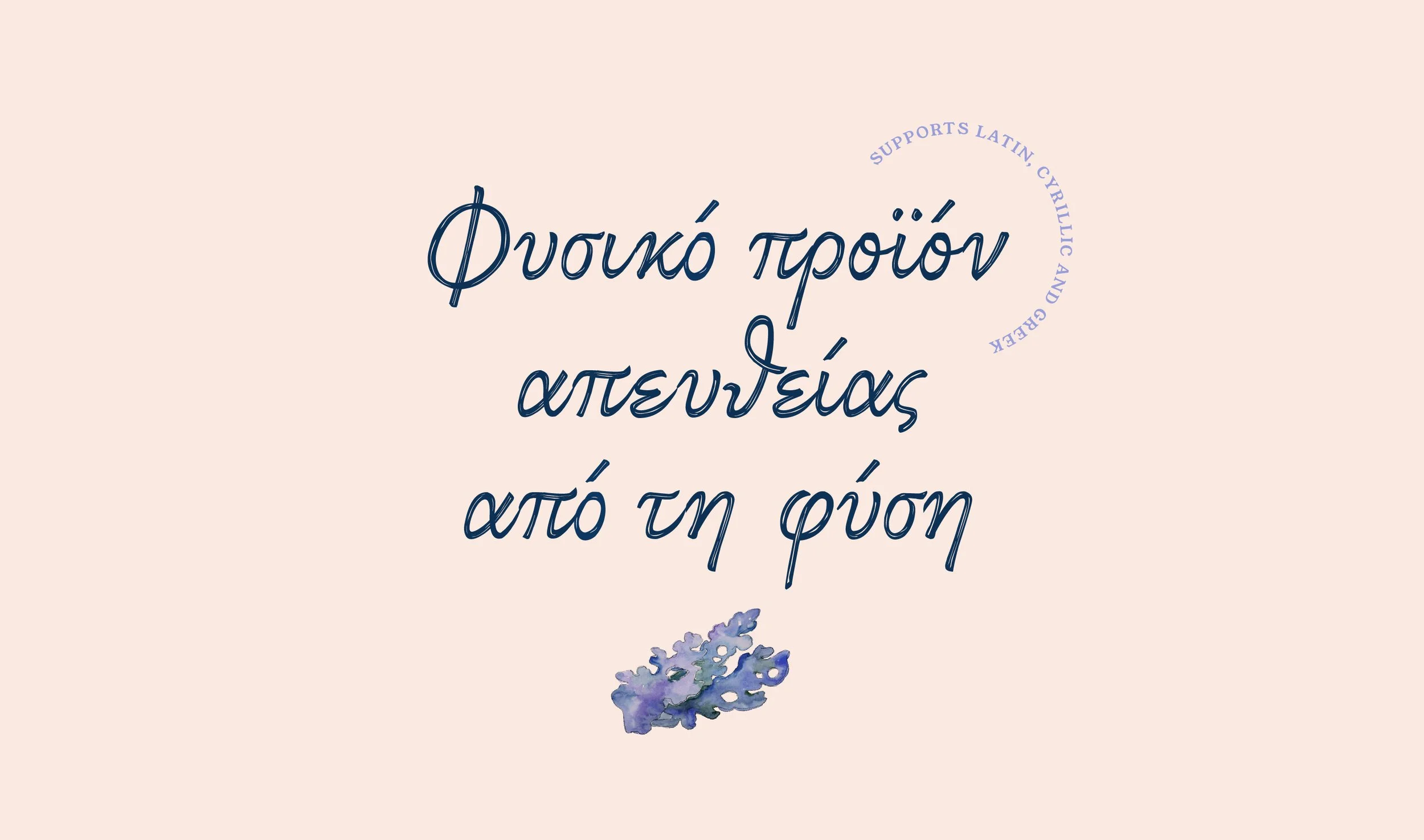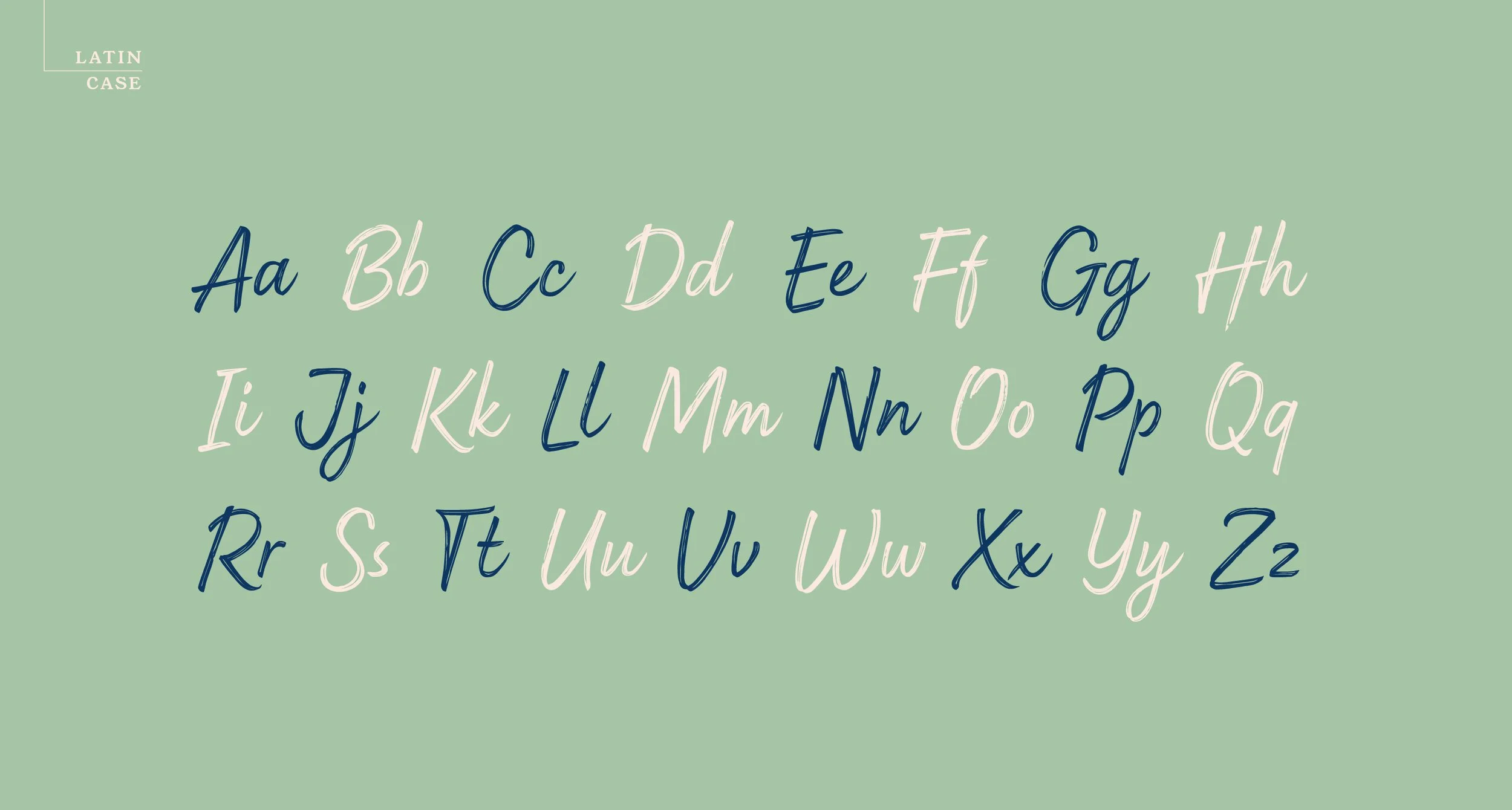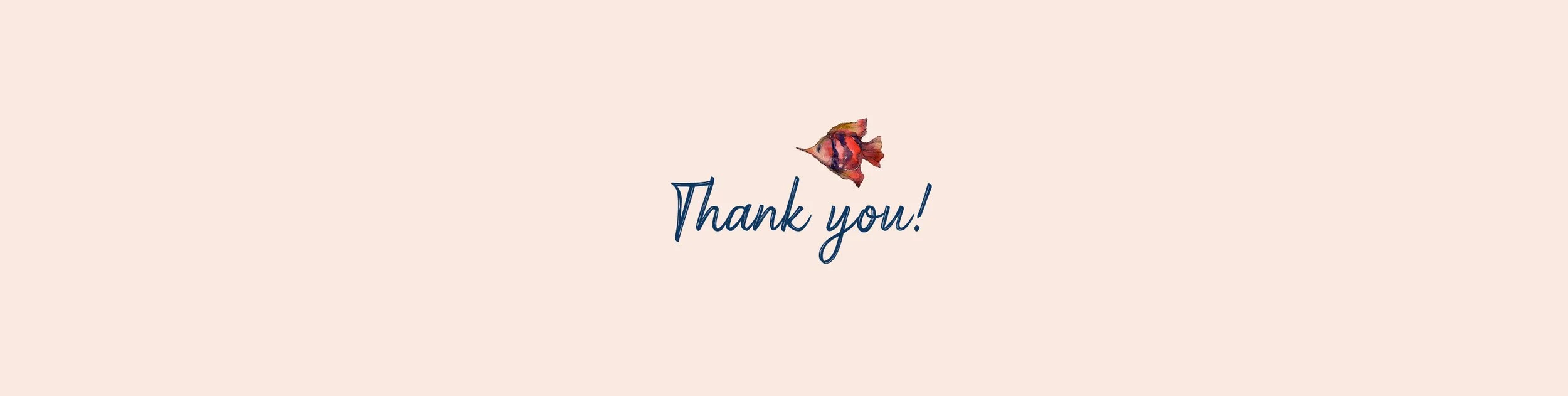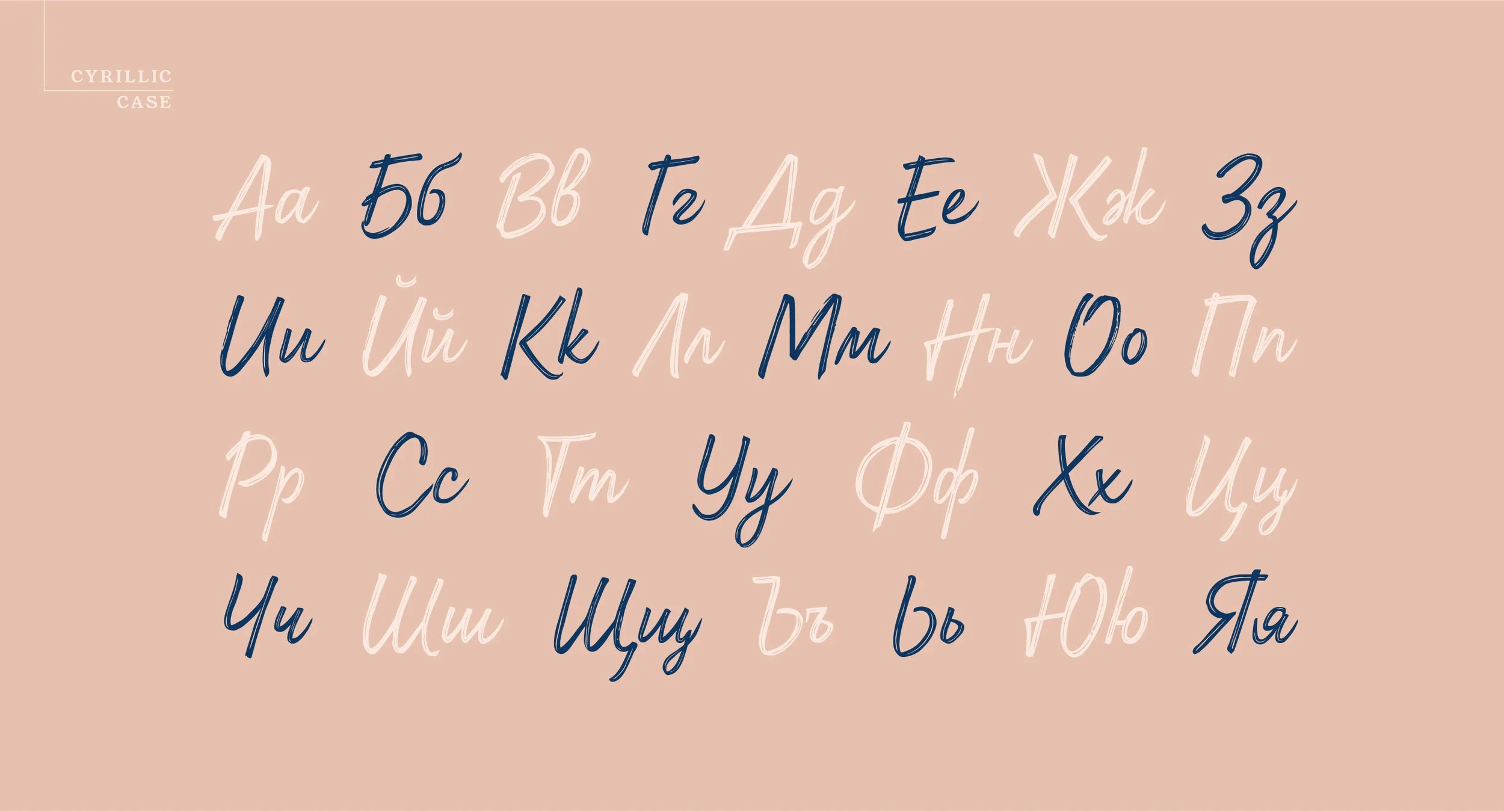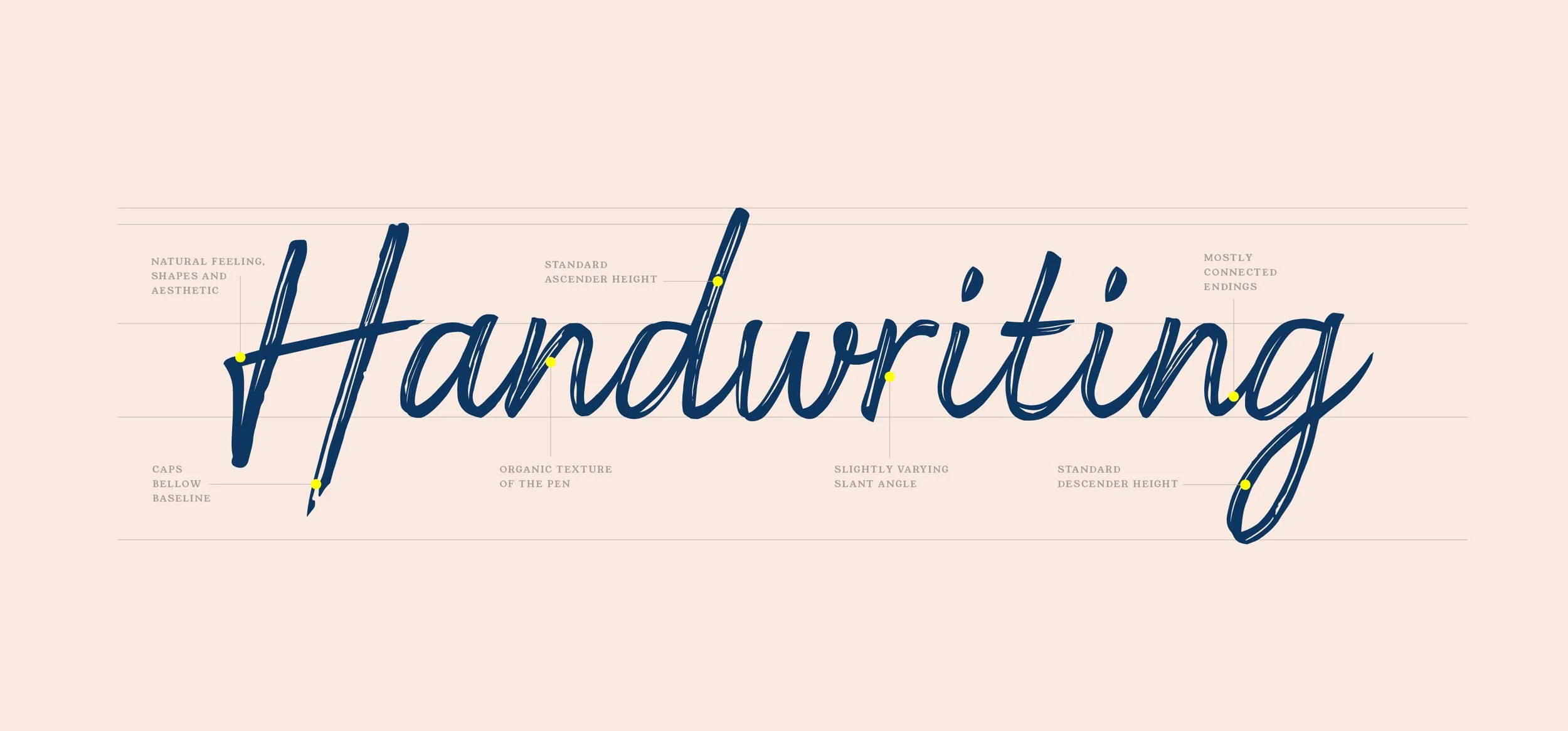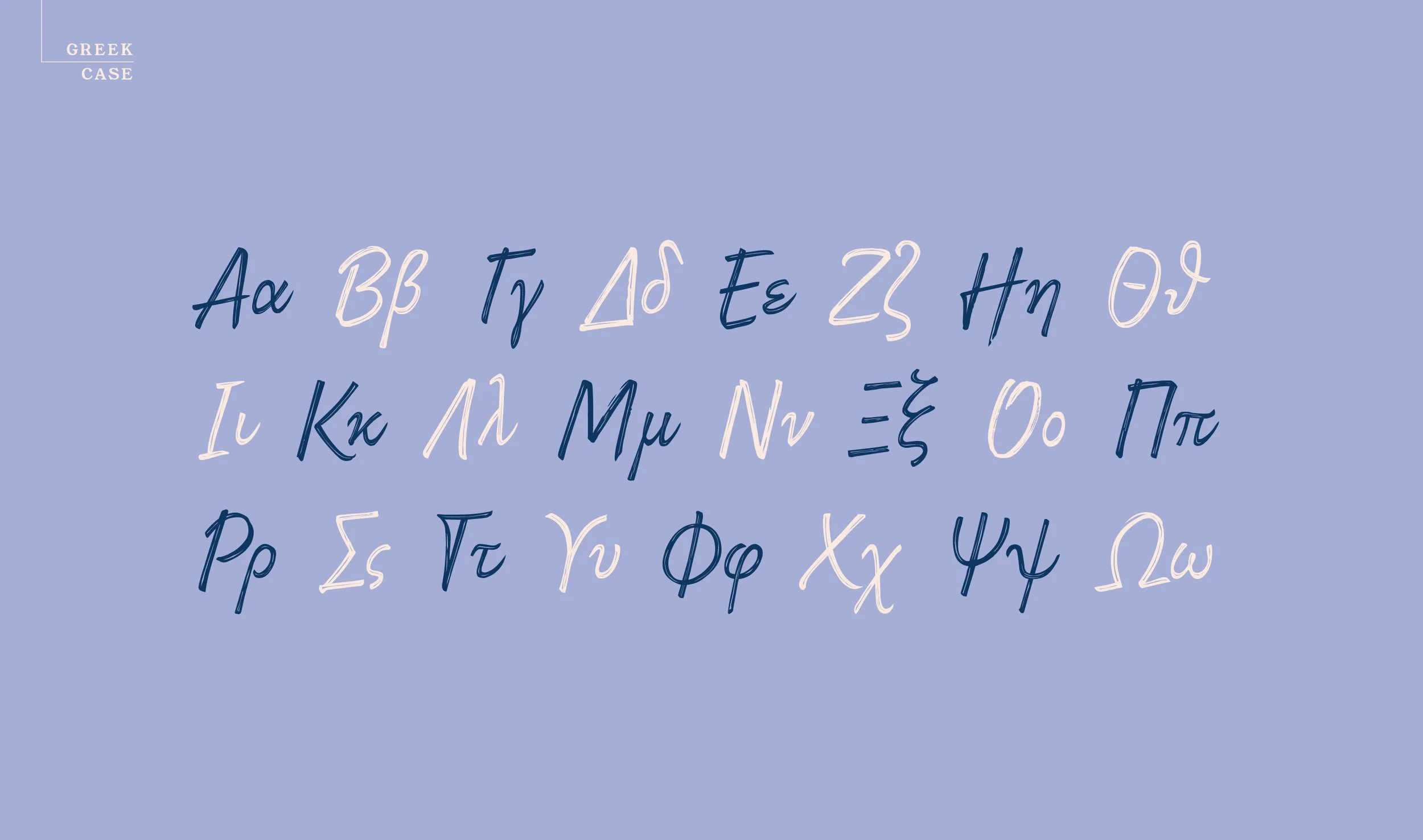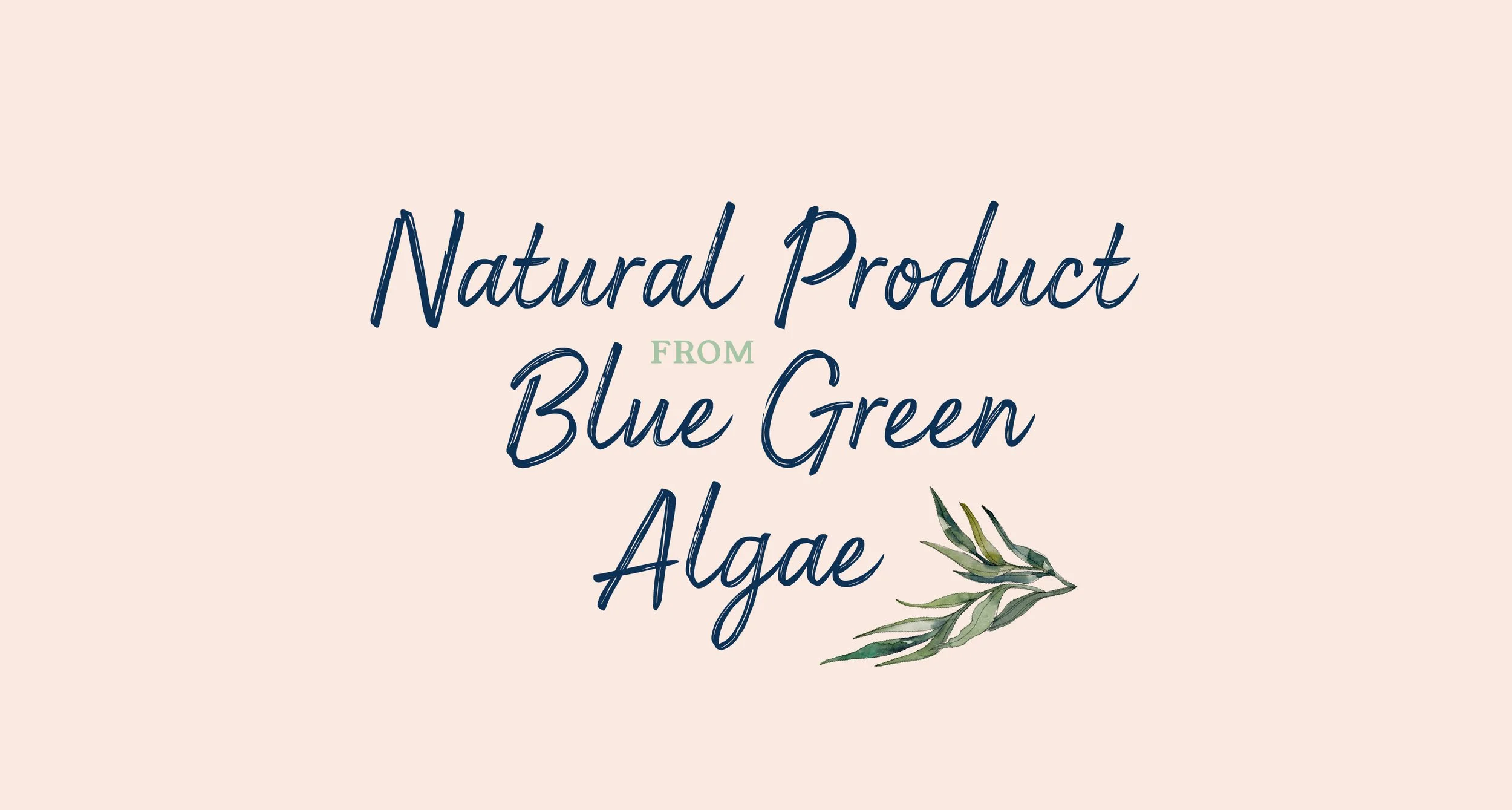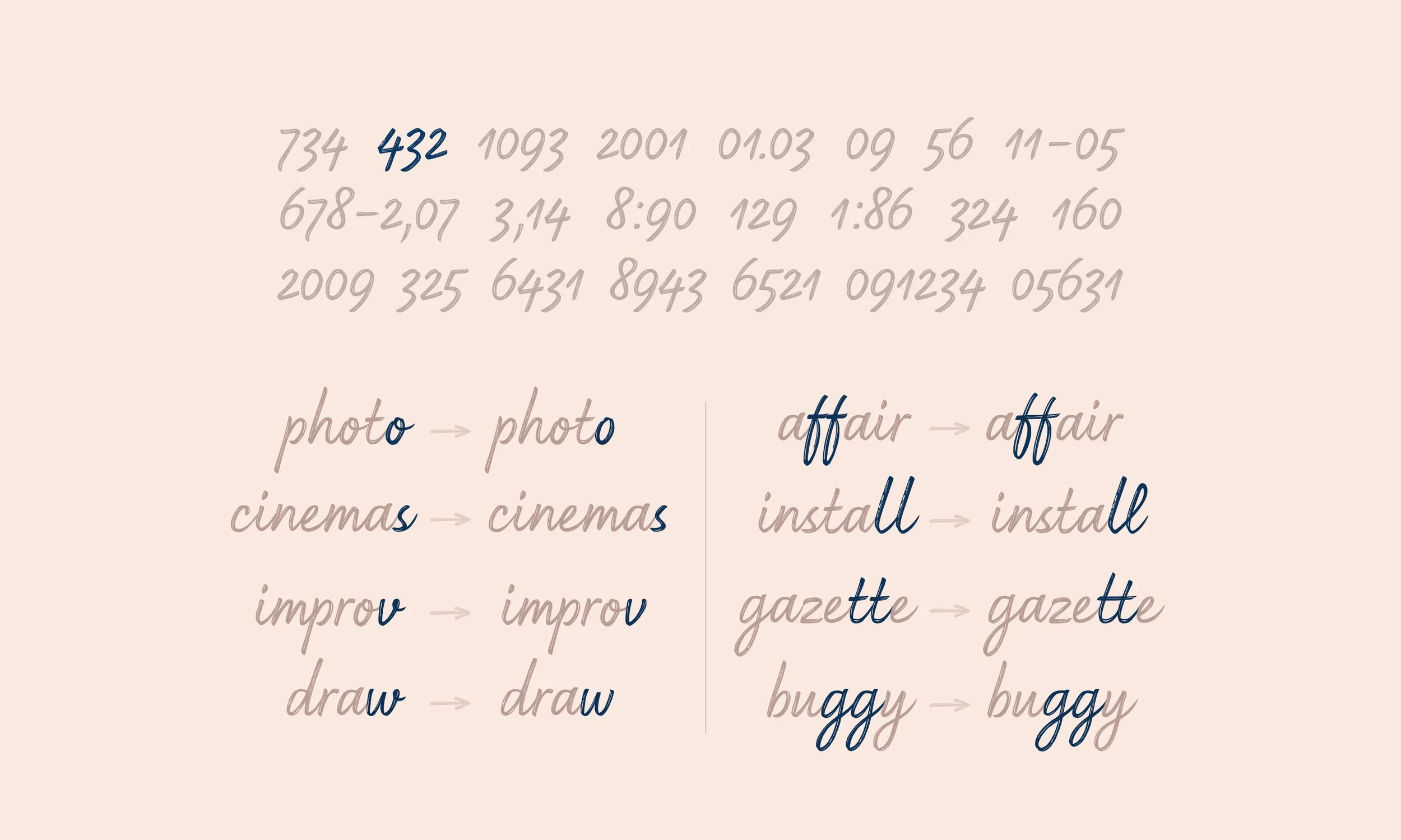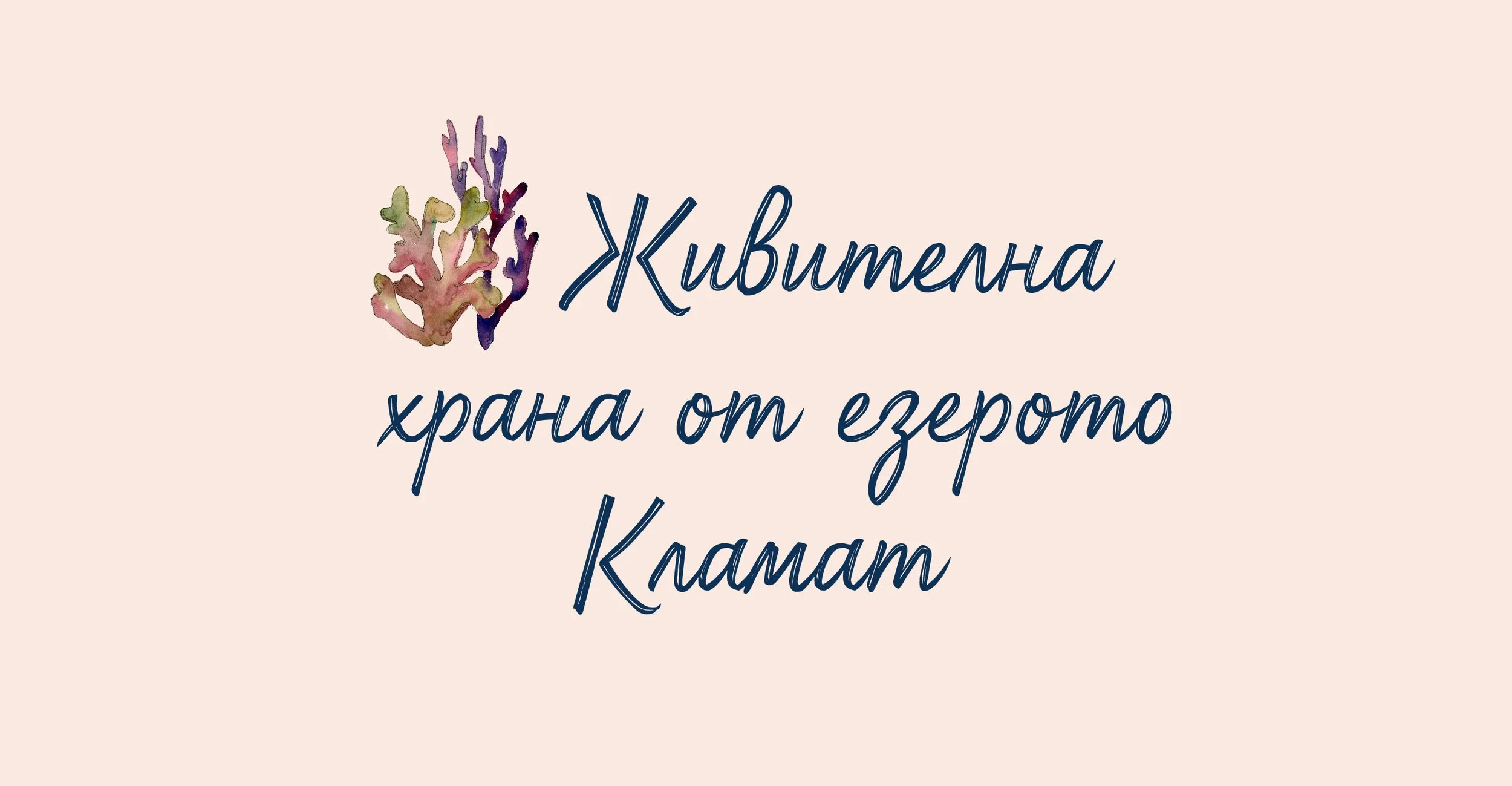
Project: Custom typeface
Calligraphy, type design
and presentation by: Jacklina Jekova
Klamath script is a handwritten font developed exclusively for AquaSource for use by all its branches worldwide for on and offline communication. We had the pleasure of working with this British brand which produces natural products for beauty and wellness with blue-green algae from Upper Klamath lake.
The typeface supports Latin, Greek, and Cyrillic, featuring Bulgarian local form. We did a lot of research on natural handwritten forms, especially for Greek script which was a first for us and our studio. The weapons of choice for this project were the Pigma™ FB brush pen from Sakura, Adobe Illustrator, and Glyphs 3.